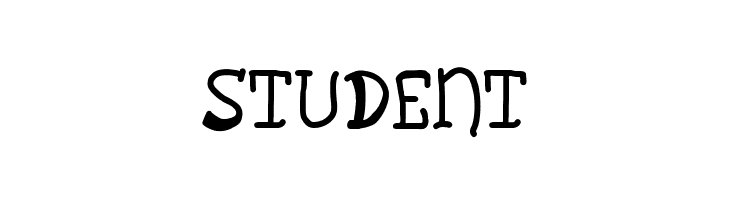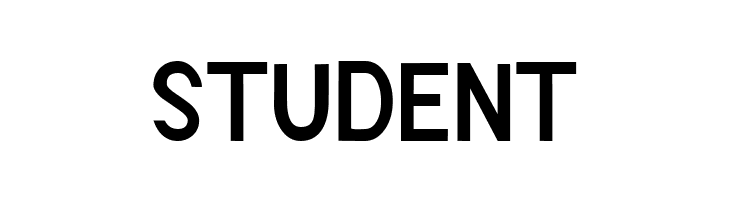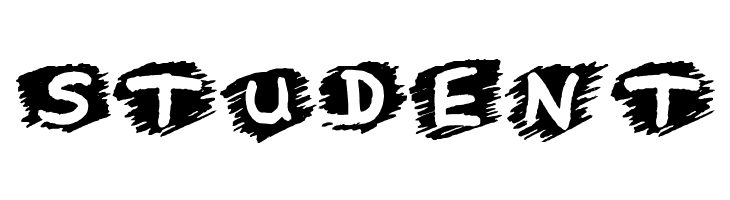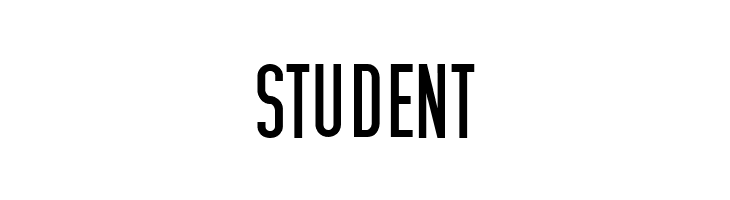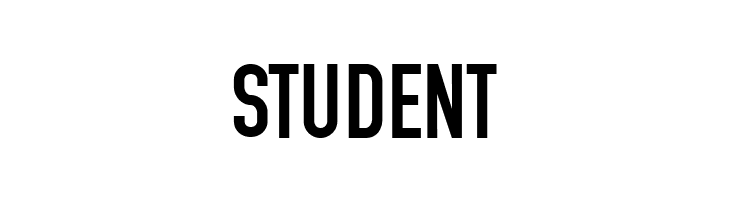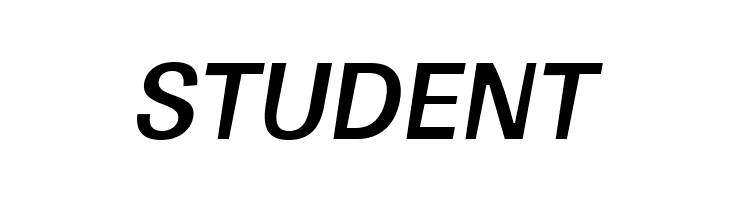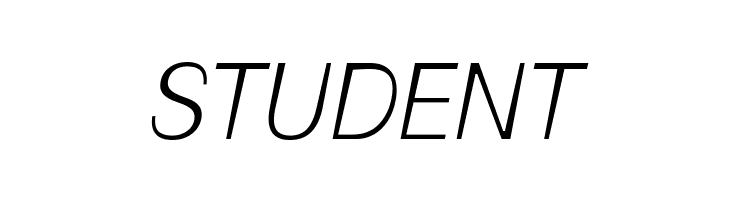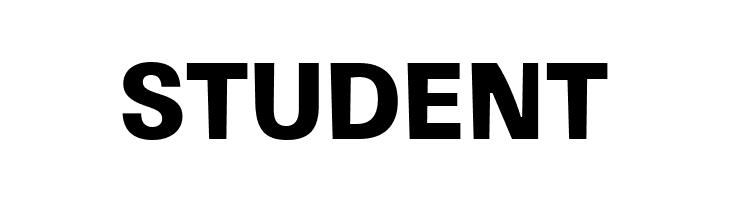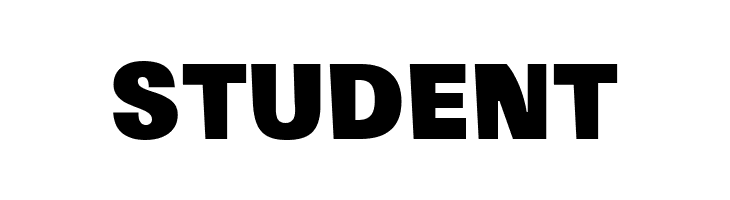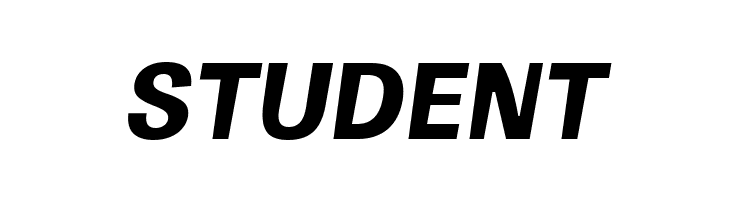
A bold, futuristic font with sharp, angular edges and a dynamic stance.
A bold, italicized, and expanded font with a futuristic and dynamic style.
A bold, italicized font with sharp, angular lines and a futuristic look.
A bold, condensed font with a modern and sleek design.
A bold, modern font with clean lines and a strong presence.
A modern, geometric font with bold, structured characters and consistent stroke widths.
A bold, distressed font with a textured, grunge effect.
A bold, modern sans-serif font with geometric influences and excellent readability.
A playful, handwritten font with smooth, flowing lines and a casual aesthetic.
A bold, clean sans-serif font with geometric shapes and uniform strokes.
A bold, italic sans-serif font with a modern and dynamic style.
A bold, heavy sans-serif typeface with a modern and impactful design.
A bold, heavy, italic sans-serif font with a modern and dynamic style.
A modern, italic sans-serif font with clean lines and excellent readability.
A clean, minimalist sans-serif font with consistent stroke width.
A modern, light, italic sans-serif font with sleek and elegant characters.
A clean and modern sans-serif font with consistent stroke width and balanced spacing.
A modern, italic sans-serif font with clean lines and excellent legibility.
A clean, modern sans-serif typeface with balanced proportions and high legibility.
A bold, modern sans-serif font with clean lines and uniform stroke widths.
A bold, heavy sans-serif font with a modern and clean design.
A bold, heavy, and italic sans-serif font with a strong presence.
A modern sans-serif font with an italic slant, offering a sleek and dynamic look.
A modern, light sans-serif font with clean lines and consistent spacing.
A modern, light, and italic sans-serif font with a sleek and minimalistic design.
A clean and modern sans-serif font with medium weight and balanced proportions.
A modern, medium-weight italic sans-serif font with balanced proportions.
A clean, modern sans-serif font with consistent stroke width and balanced spacing.